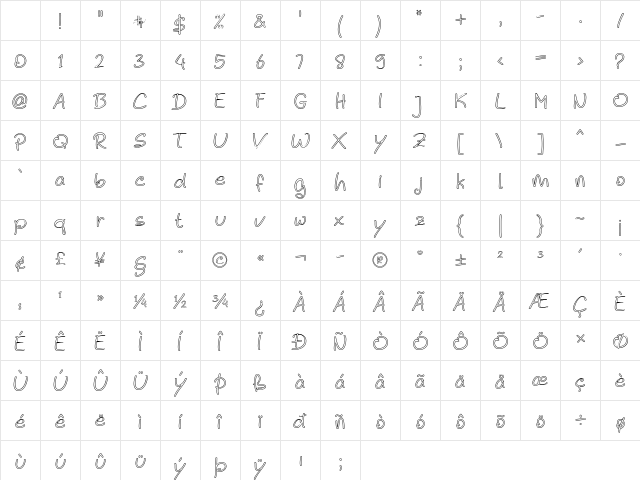
Noela Sherly Outline is built around its visual character rather than neutral utility - its distinctive forms are designed to make an impression at display sizes.
Font Pairing: Pair with a clean neutral sans-serif for body copy to let Noela Sherly Outline's character lead without overwhelming the composition.
Pro Tip: Use Noela Sherly Outline exclusively at display sizes - it was designed to be seen, not read at length. Let a neutral companion handle body copy.